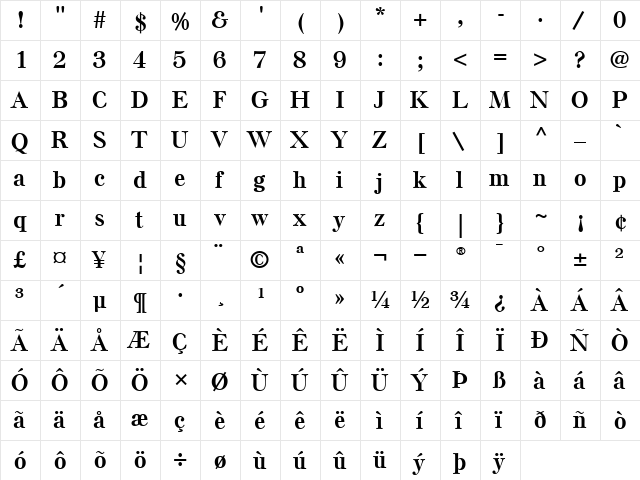
ElseNPL Bold
Design Context for ElseNPL Typeface
ElseNPL is a composed and adaptable typeface that performs quietly and consistently across a wide range of design contexts. Its bold stroke weight gives it real presence on the page.